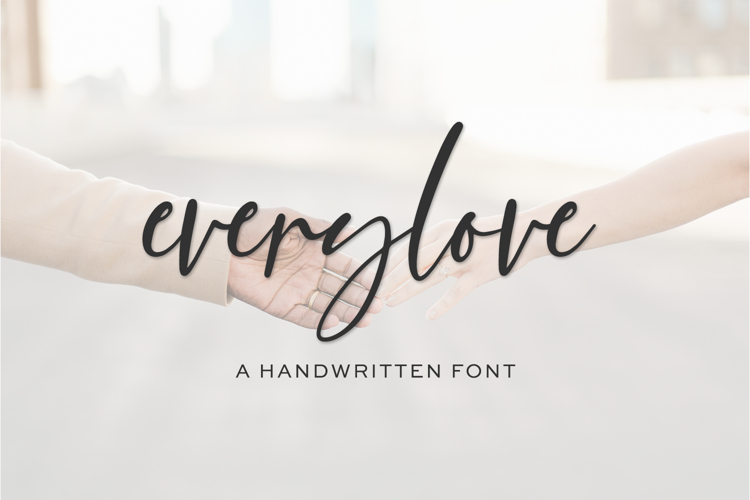
Say hello to Everylove Script, a stylish signature font with alternates & ligatures.
Everylove Script is best for:
- website design + website accents - think travel blogs, fashion blogs, & more
- 29 alternate characters
- 14 ligatures - bb, cc, dd, ee, ff, gg, ll, mm, nn, oo, pp, rr, ss, tt